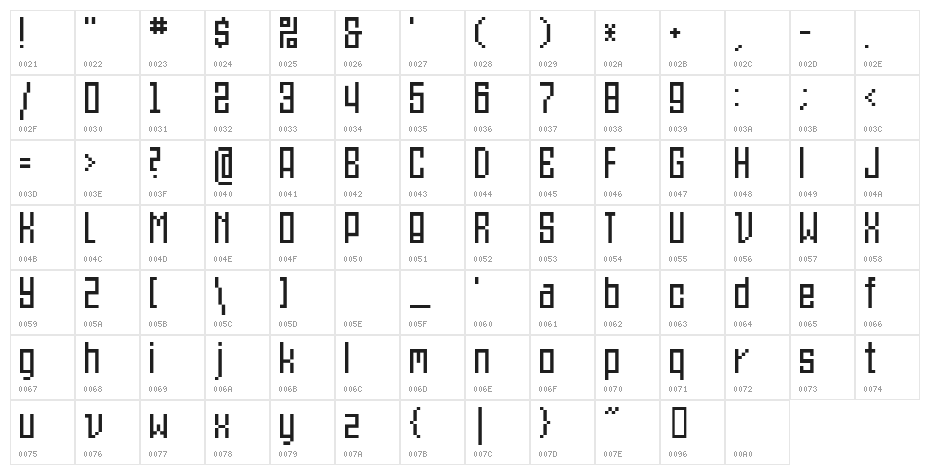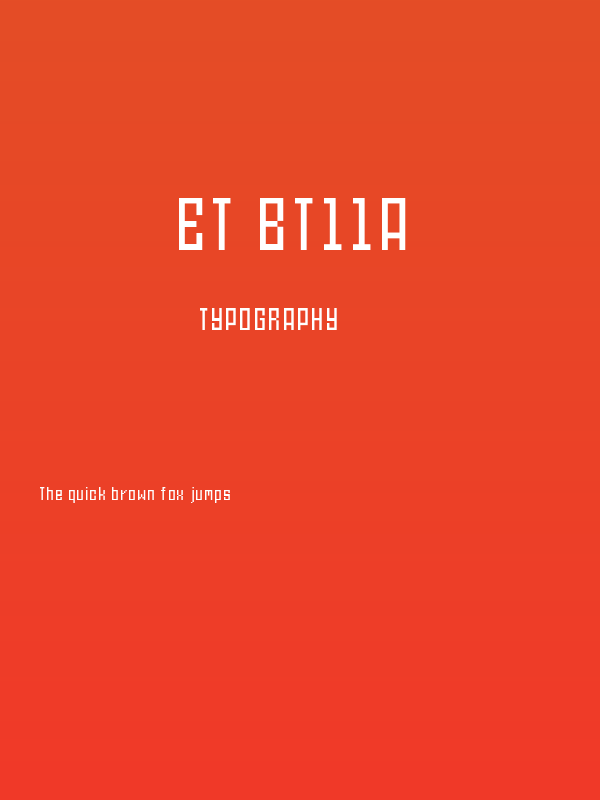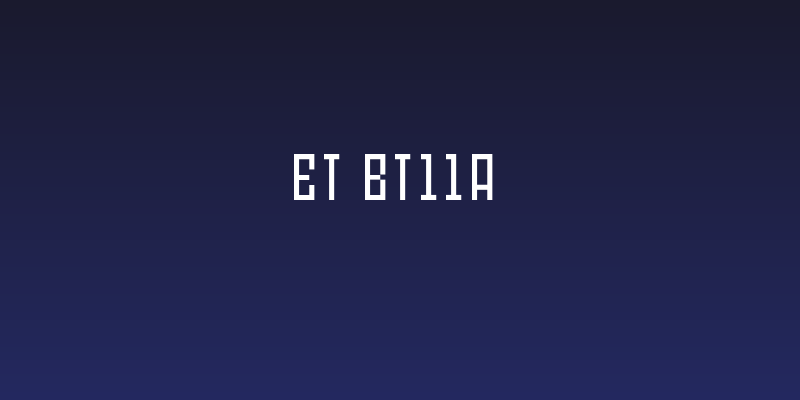
Et Bt11A Font
Et Bt11A Description
This font features a pixelated, monospaced design reminiscent of early digital displays and retro video games. Each character is constructed with a grid-like precision, giving it a distinctly blocky and geometric appearance. The uppercase and lowercase letters maintain a consistent height, contributing to its uniformity. Numbers and special characters follow the same pixelated style, ensuring a cohesive look across all glyphs. The font's simplicity and clarity make it highly legible, even at smaller sizes. Its nostalgic aesthetic is ideal for projects that aim to evoke a sense of vintage computing or digital art.
| Use Case | Headlines, Logos, Digital Art |
| Proposed Projects | Ideal for retro video game designs, digital art projects, coding environments, and any creative work that seeks to capture the essence of early digital technology. |